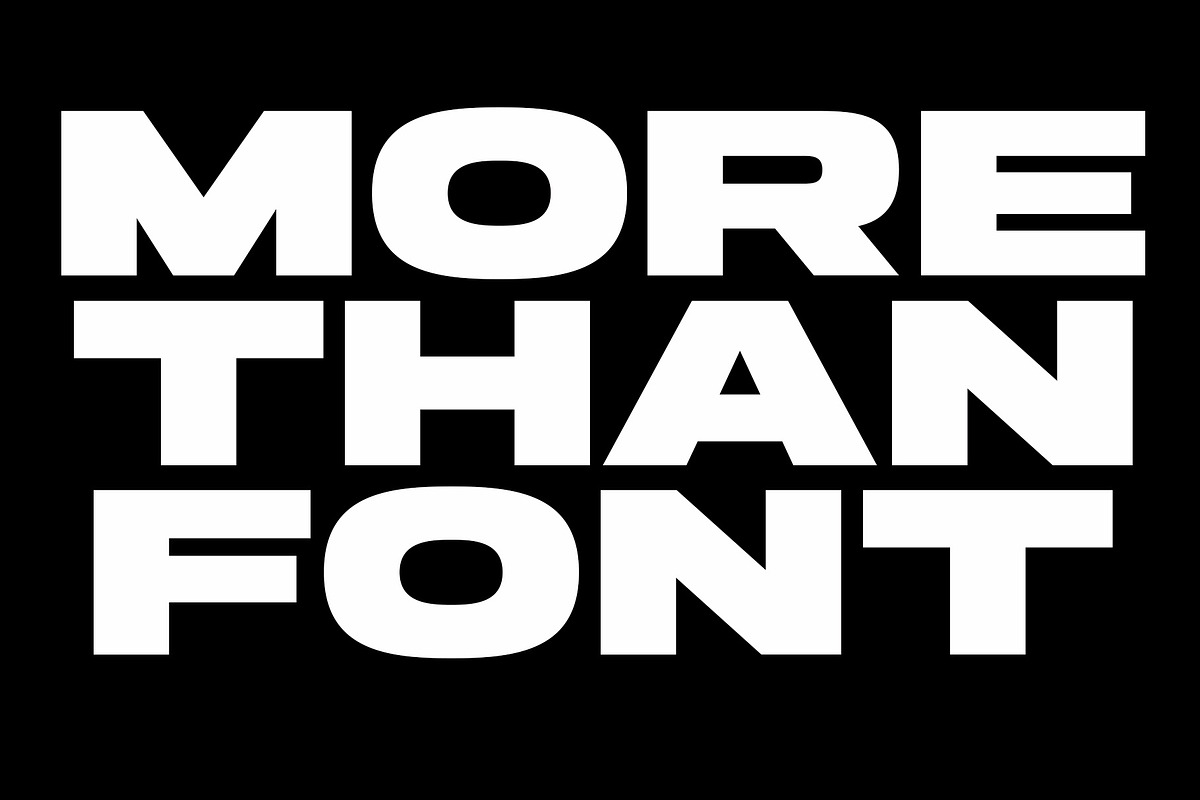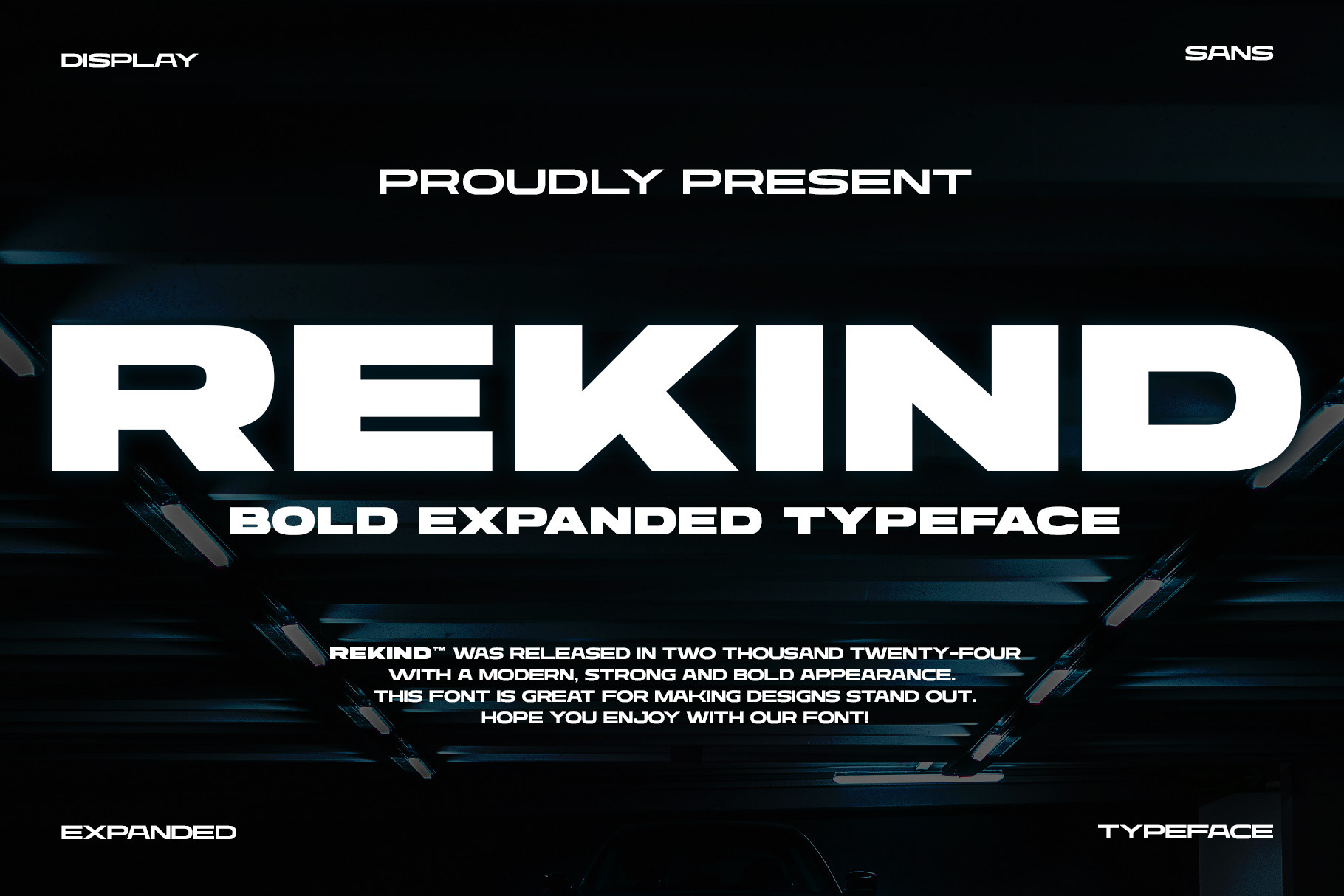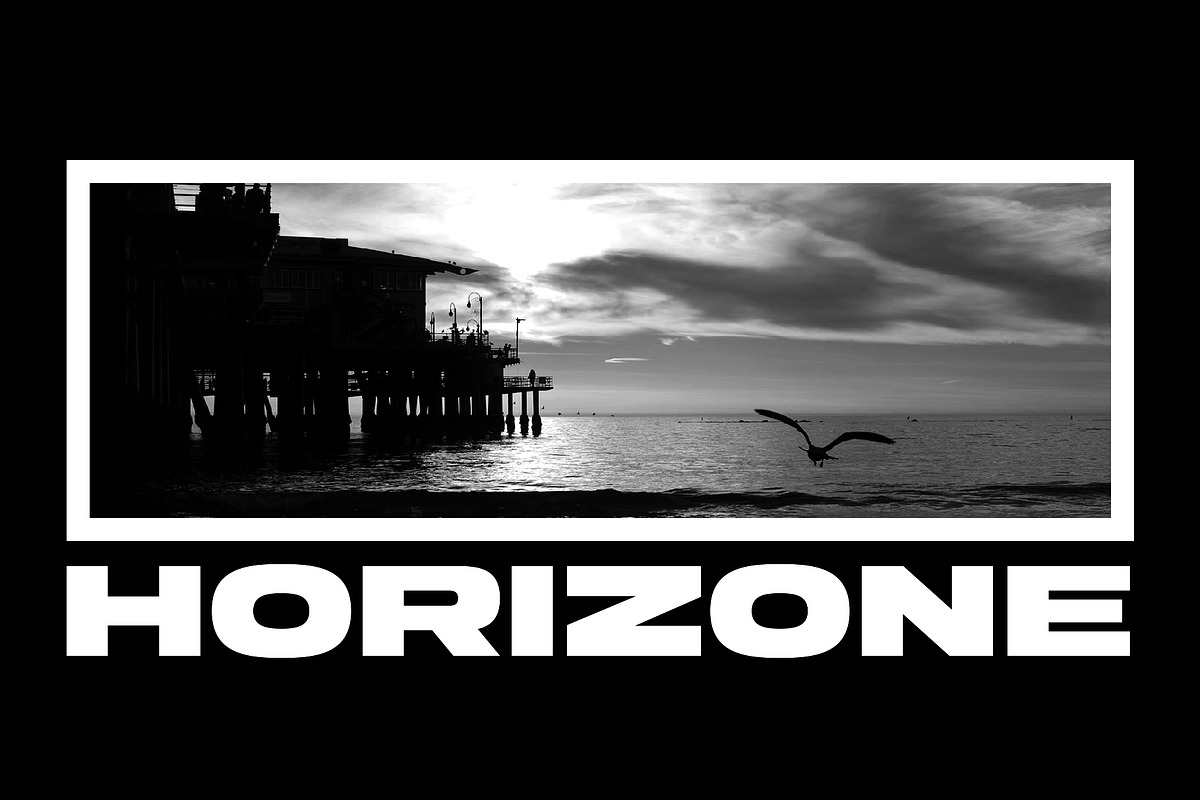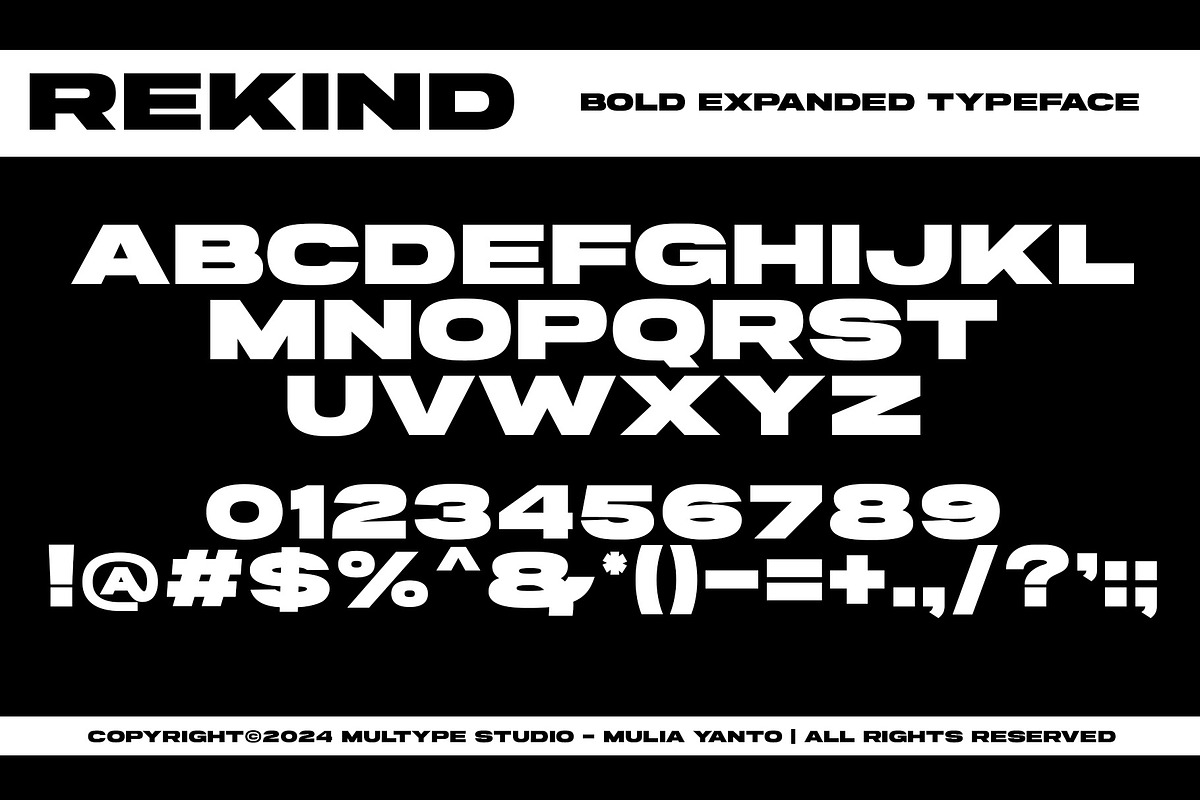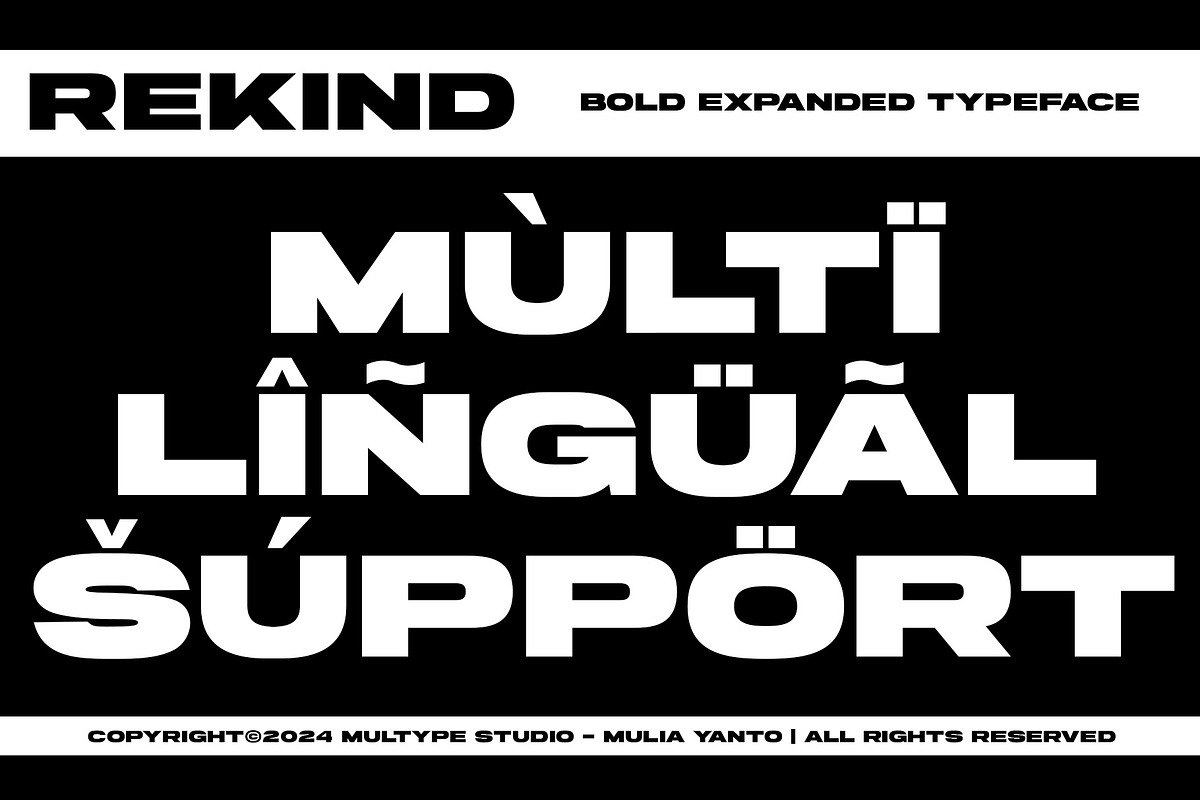
Rekind Expanded Font
Rekind Expanded is a great looking bold sans serif font with a modern look and is strong and bold. Designed to make a strong impression and stand out in a variety of design contexts. This font is also suitable to be applied especially in logo, branding, promotions, posters, book covers, magazine layouts, social media, headlines, titling, movie title, logo brand, logo company, layout website and other design.